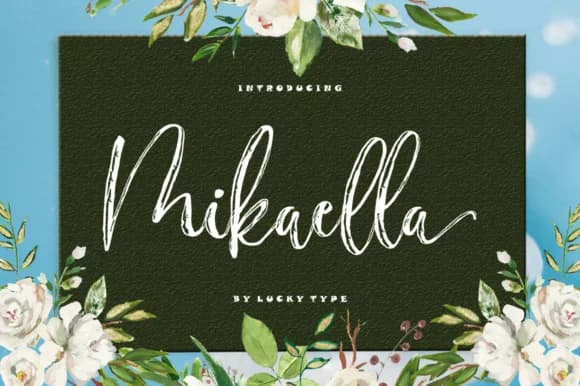
1 / 9About Mikaella Font
Mikaella Font by luckytype.font is a modern script typeface that combines flowing letterforms with an intentional irregular baseline, creating visual interest while maintaining elegant readability. The design carries a contemporary feel that bridges the gap between casual handwriting and refined calligraphy, making it equally suited to both personal creative projects and professional branding contexts where personality matters. This femininely styled script excels in creating sophisticated materials for celebratory occasions and special announcements. The font performs beautifully for wedding invitation suites where each character's organic rhythm adds warmth to milestone moments, personalized stationery design that demands an authentic human touch, calligraphy-inspired logos for lifestyle and wellness brands seeking distinctive brand identity, and hand-lettered greeting card compositions that capture genuine sentiment and emotional connection. Beyond printed materials, its flowing characteristics prove equally effective in social media quote graphics where typography needs to command attention, as well as digital branding applications where a distinctive typeface strengthens visual communication. The irregular baseline is more than an aesthetic choice, it's a design feature that prevents the typeface from feeling sterile while the overall composition remains refined enough for upscale applications. Whether you're designing intimate personal projects or representing a premium brand, Mikaella Font adapts across both print and digital formats with consistent charm. Get Mikaella Font on Creative Fabrica to bring distinctive character to your next design project.
Mikaella Font is a script font that shines as a display or heading face. Pair it with a clean sans-serif or serif font for body text β the contrast creates a clear hierarchy while the two styles stay balanced and easy to read.